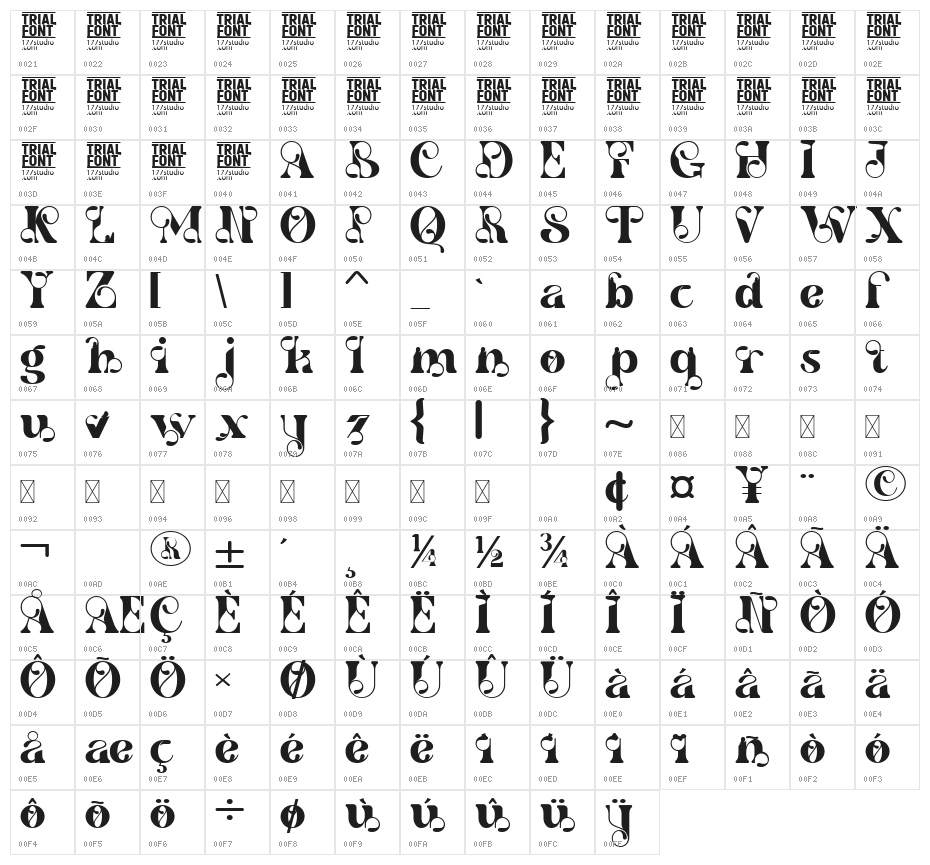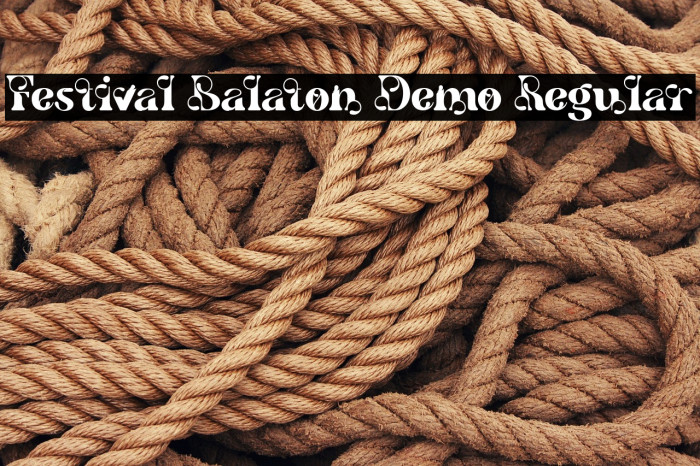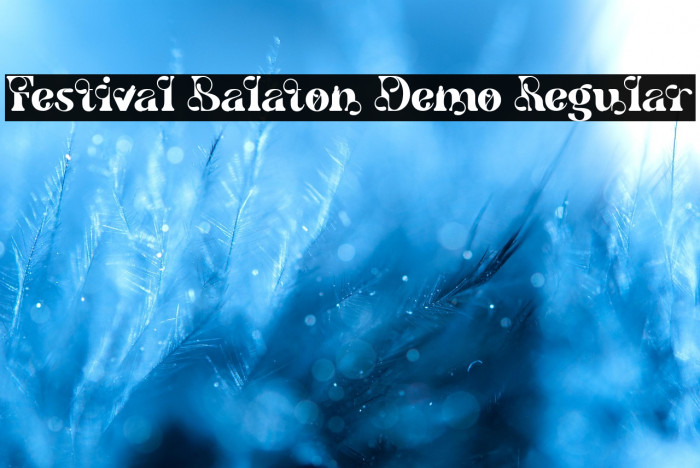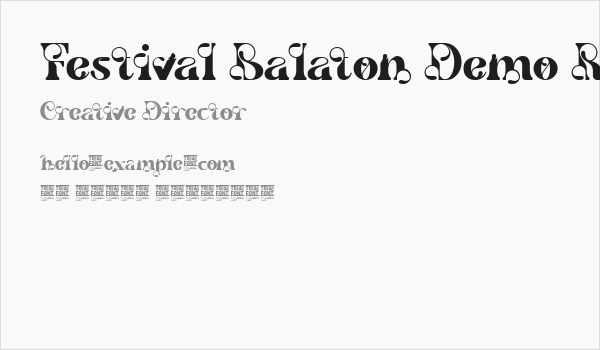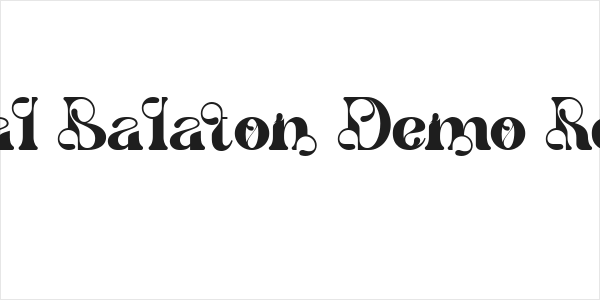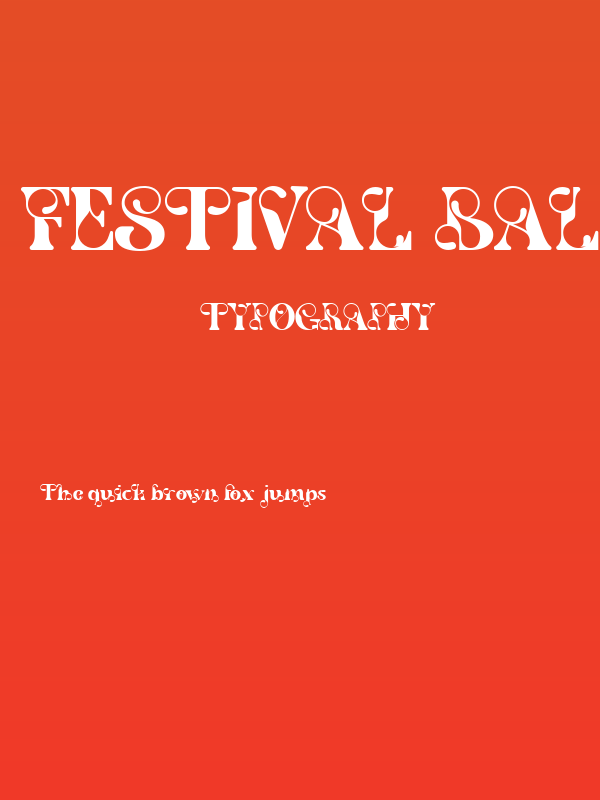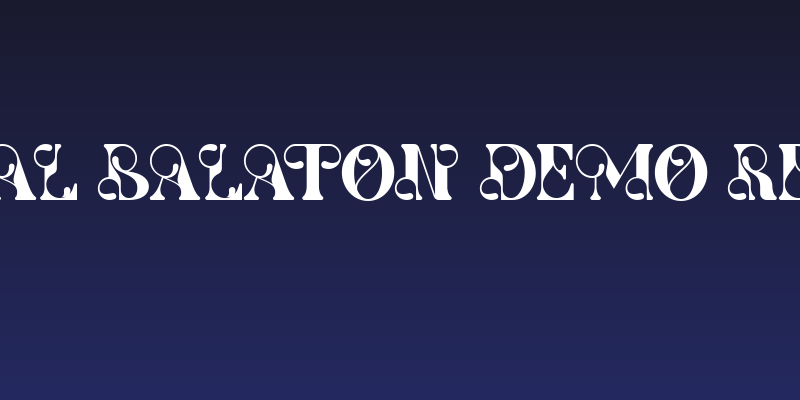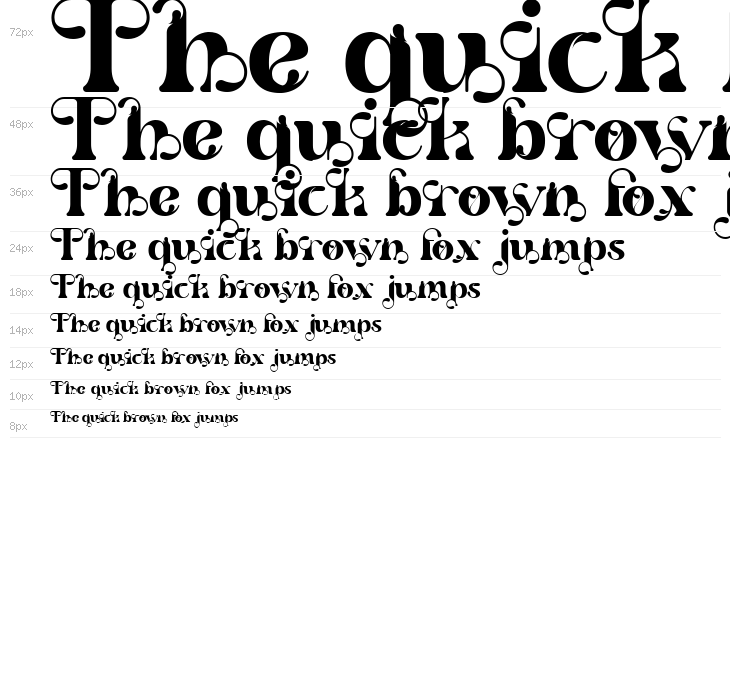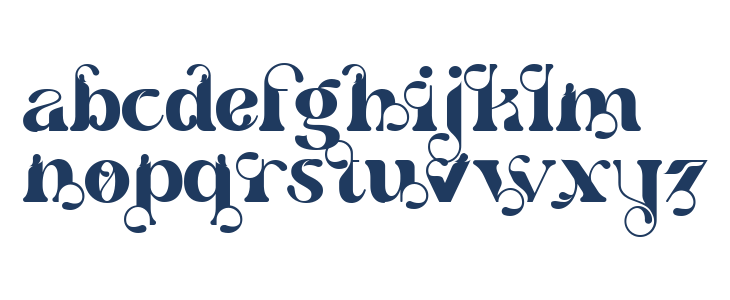
Festival Balaton Demo Regular Font
Festival Balaton Demo Regular Description
This font features a unique and artistic design with a playful and decorative style. The characters are bold and exhibit a whimsical flair, with intricate loops and curves that add a sense of movement and creativity. The uppercase letters are particularly striking, with their elaborate forms and bold presence. The lowercase letters maintain the same decorative style, ensuring consistency throughout the typeface. The numbers and special characters are equally stylized, making them suitable for creative and eye-catching designs.
| Proposed Projects | Ideal for festival posters, creative branding, artistic invitations, and playful packaging designs. |